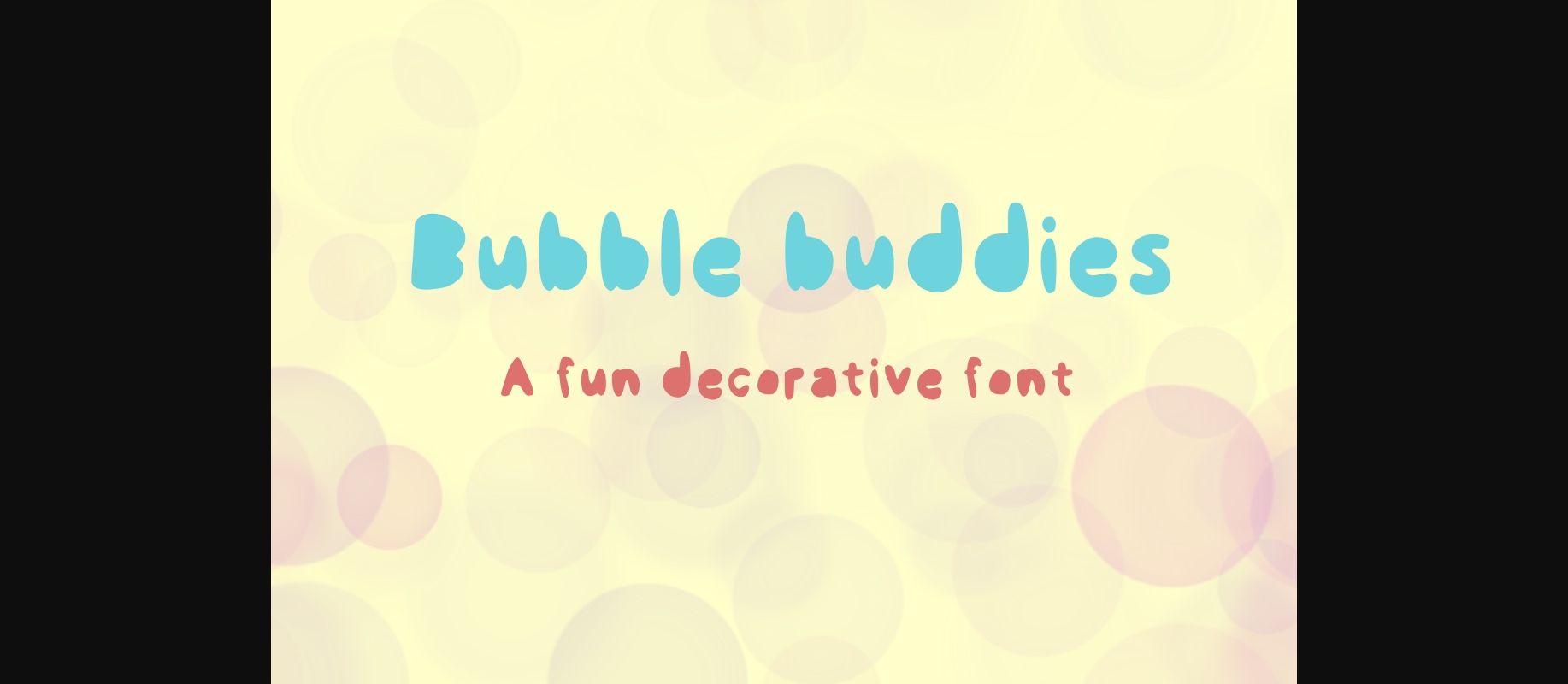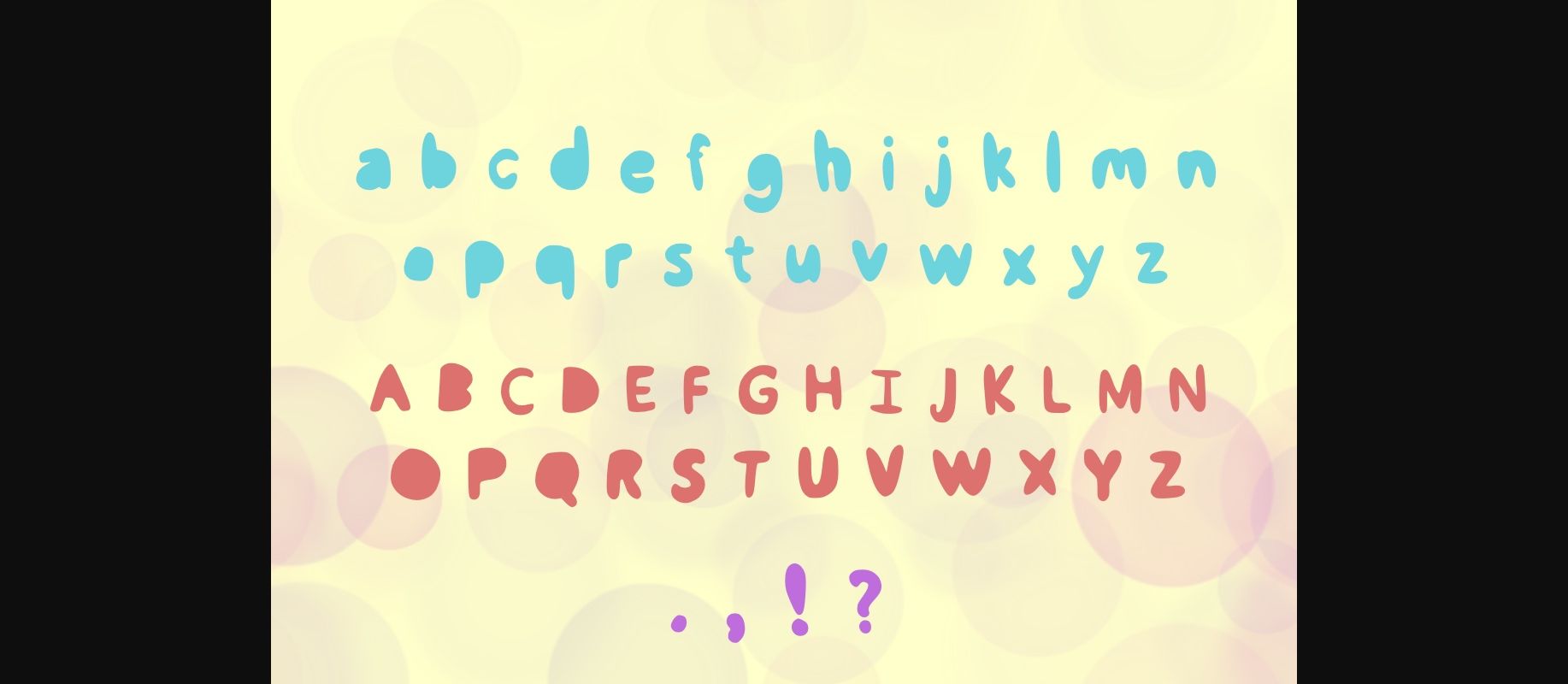
Bubble Buddies Font
About Bubble Buddies Font
Bubble Buddies is a fun, decorative font with a cute feel. Ignite your creativity with its whimsical feel!